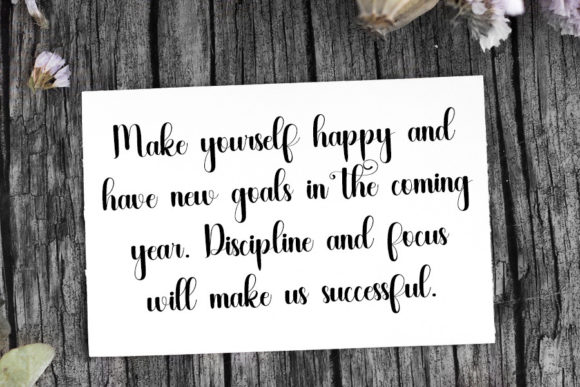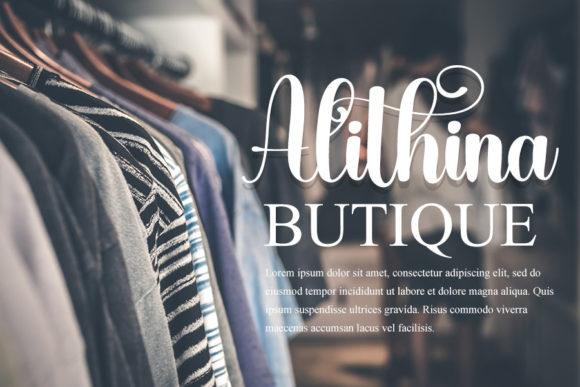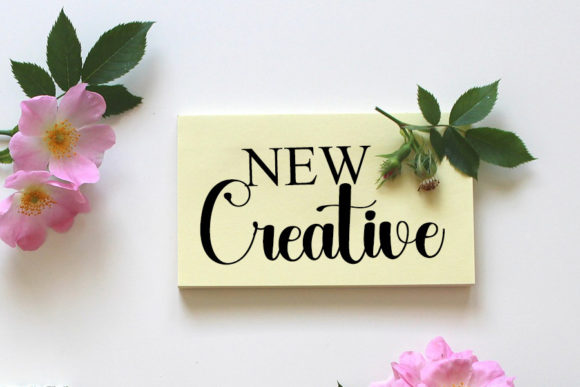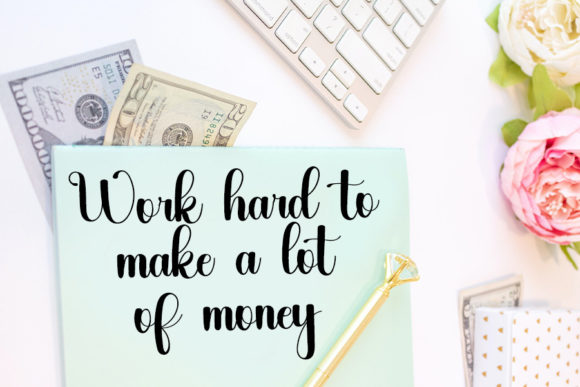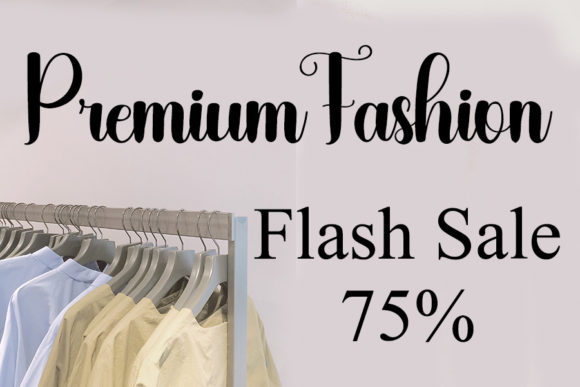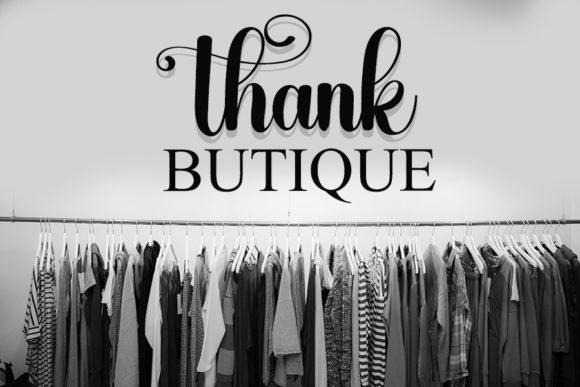
Santhalia Font
About Santhalia Font
Santhalia is an enchanting script font. It will add a luxury spark to any design project that you wish to create! This font is PUA encoded which means you can access all of the amazing glyphs and ligatures with ease!